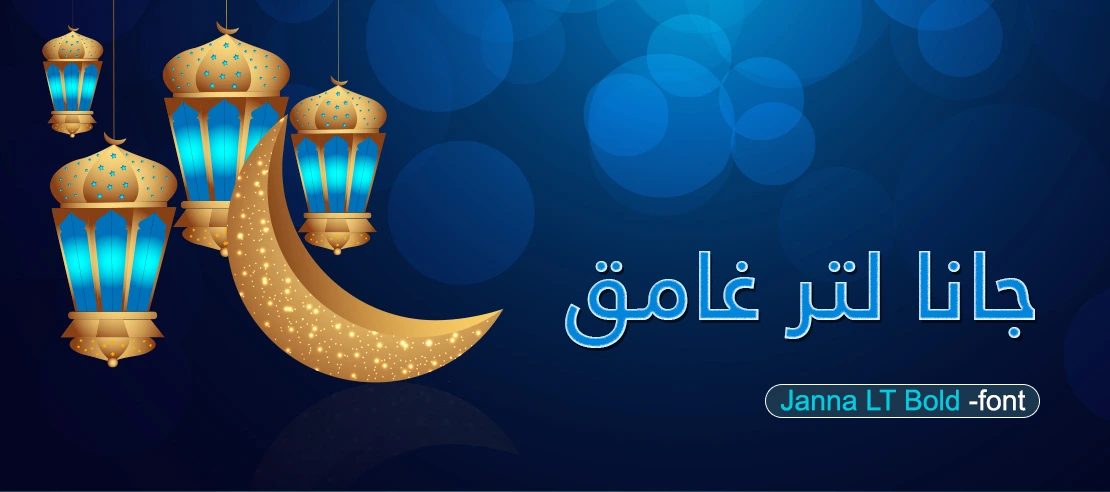
Janna LT Bold, designed by Nadine Chahine, is an Arabic typeface that includes a variation created with the original Avenir in mind. This font, named Janna (Arabic: جنّة‎), meaning "paradise" in Arabic, was initially developed in 2004 as a signage font for the American University of Beirut. The Arabic characters in this font are based on the recently introduced Frutiger Arabic but have been given a more angular appearance. Due to its cultural and technical importance, this Arabic font is extensively utilized as the default typeface for various systems and designs.
Janna LT Bold